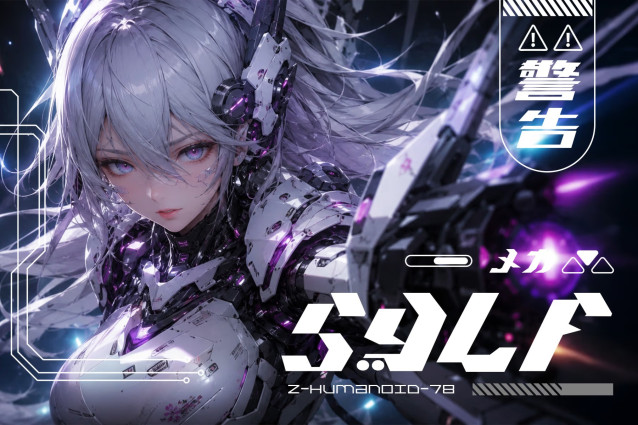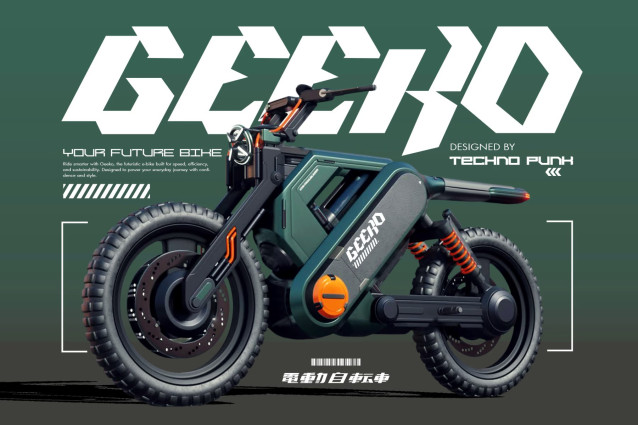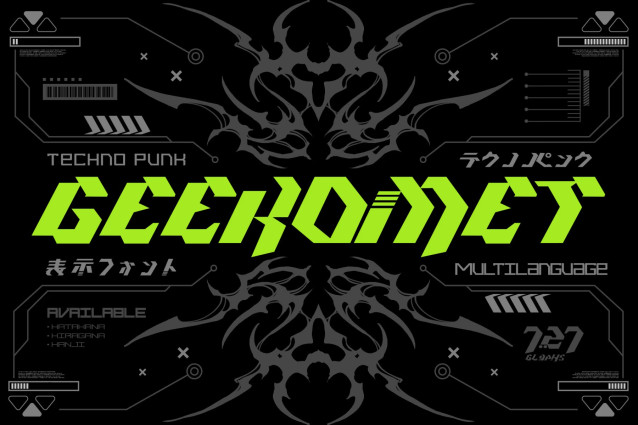
Geekomet Techno Punk Display Font
Geekomet is a futuristic Techno Punk display font inspired by cyberpunk culture, sci-fi interfaces, mecha design, and modern digital aesthetics. Featuring bold geometric letterforms with sharp angular cuts, Geekomet is built to create striking visuals for logos, branding, gaming, posters, album covers, apparel, UI concepts, and technology-inspired projects.
Designed for creators who want a powerful futuristic look, Geekomet combines style with functionality through multilingual support, including complete Hiragana, complete Katakana, and 300 carefully selected Kanji glyphs optimized for display typography and creative applications. This curated Japanese character set makes it perfect for cyberpunk artwork, anime-inspired branding, gaming graphics, streetwear, and futuristic visual identities.